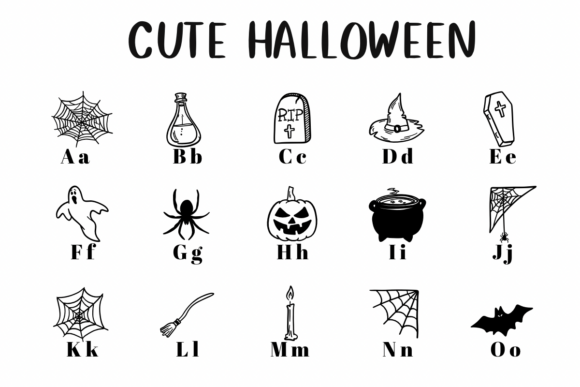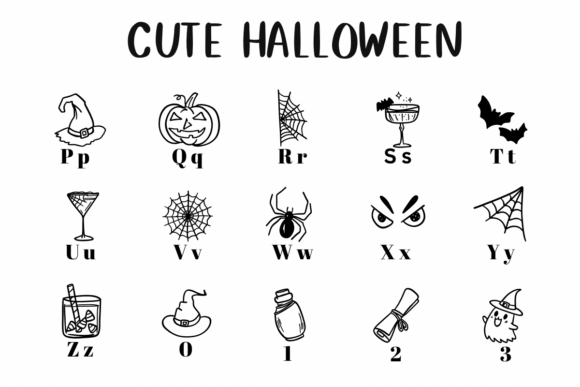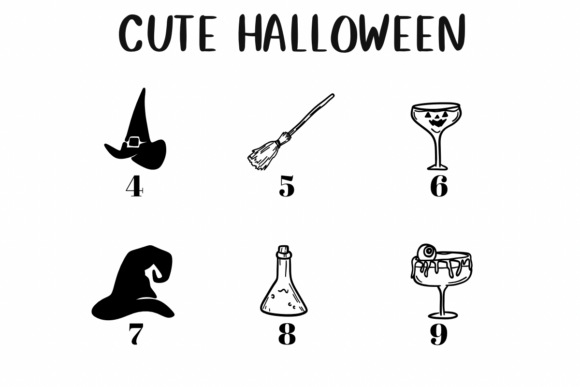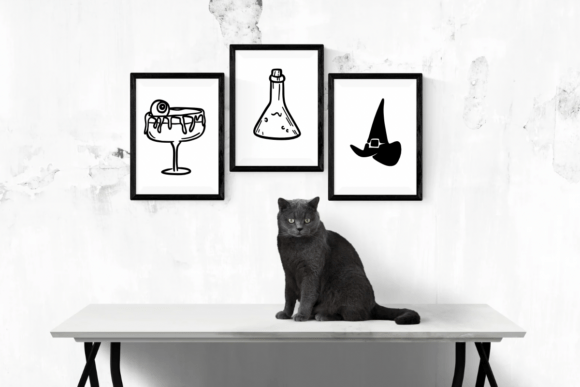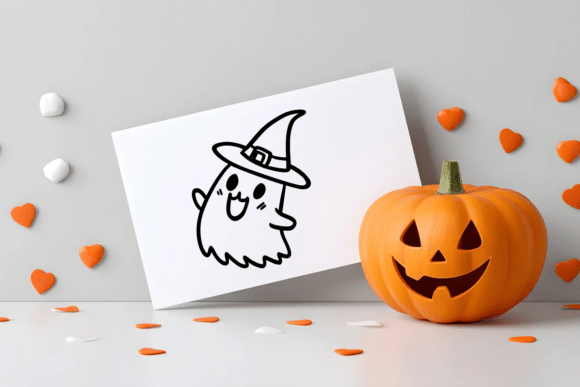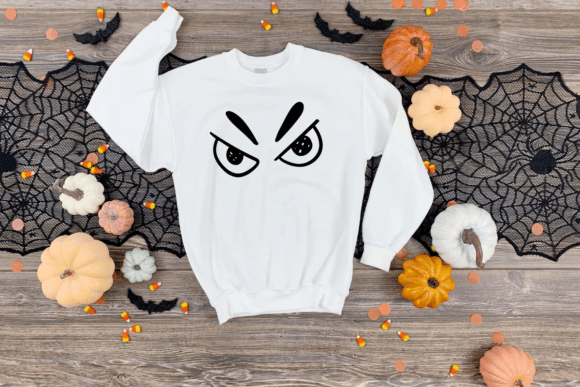
Cute Halloween Font: Add a Spooky Touch to Your Creative Projects
Are you looking for a font that can add a spooky touch to your creative projects? Look no further than the Cute Halloween font! This dingbats font is perfect for designers and crafters who want to create unique and eye-catching projects for Halloween. In this article, we’ll explore the features of the Cute Halloween font and how you can use it to enhance your creative projects.
What is Cute Halloween Font?
Cute Halloween is a dingbats font that features a spooky theme. The font includes a wide range of Halloween-themed characters, such as bats, ghosts, pumpkins, and more. The font is designed to be easy to use and can be installed on your computer like any other font. Once installed, you can use it in your favorite design software, such as Adobe Illustrator or Canva.
Features of Cute Halloween Font
The Cute Halloween font has several features that make it perfect for designers and crafters. Some of the key features include:
- Halloween-themed characters: The font includes a wide range of Halloween-themed characters, such as bats, ghosts, pumpkins, and more.
- Versatile: The font can be used for a wide range of creative projects, from wedding invitations to DIY crafts.
- Unique and eye-catching: The font features a unique and eye-catching design that is sure to stand out.
How to Use Cute Halloween Font
The Cute Halloween font can be used for a wide range of creative projects, including:
- Wedding Invitations: Add a spooky touch to your wedding invitations with the Cute Halloween font.
- DIY Crafts: Use the font to create unique and eye-catching DIY crafts, such as Halloween decorations and gift tags.
- Decorations: Use the font to create spooky decorations, such as Halloween banners and signs.
- Logos: Use the font to create unique and eye-catching logos for your business or brand.
Tips for Using Cute Halloween Font
Here are some tips for using the Cute Halloween font:
- Experiment with different sizes and colors: Experiment with different sizes and colors to find the perfect look for your project.
- Combine with other fonts: Combine the Cute Halloween font with other fonts to create a unique and eye-catching design.
- Use for headlines and titles: Use the font for headlines and titles to add a spooky touch to your project.
The Cute Halloween font is a versatile and unique font that can add a spooky touch to your creative projects. With its wide range of Halloween-themed characters and easy-to-use design, it’s perfect for designers and crafters who want to create unique and eye-catching projects. Whether you’re creating wedding invitations, DIY crafts, or decorations, the Cute Halloween font is sure to be a hit.
- What type of font is Cute Halloween?: Cute Halloween is a dingbats font with a spooky theme.